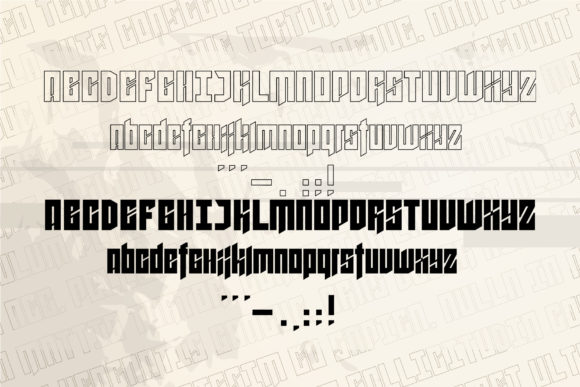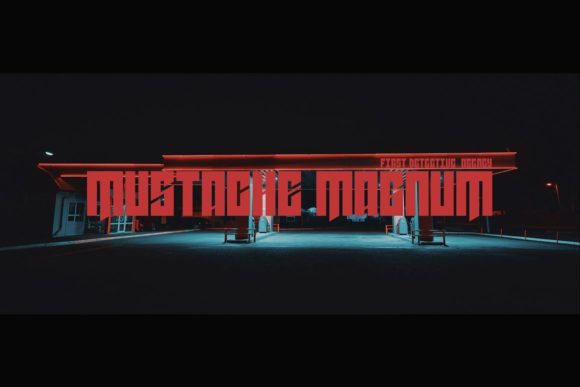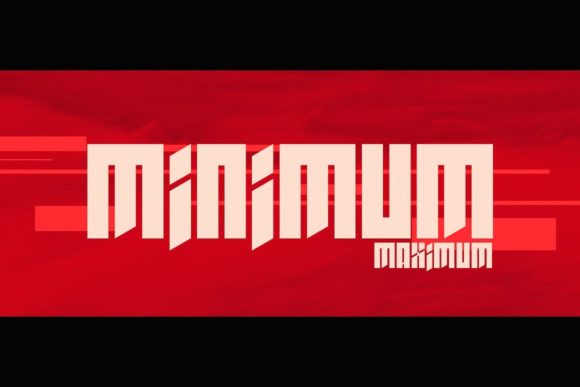
Unleash Your Creativity with Big Brother Font: The Ultimate Neo-Gothic Display Font
Are you tired of using the same old fonts in your designs? Do you want to add a bold and fierce touch to your projects? Look no further than the Big Brother Font, a cool and assertive neo-gothic display font that’s sure to take your designs to the next level. In this article, we’ll explore the features and benefits of Big Brother Font, and show you how to use it to create stunning designs that demand attention.
What is Big Brother Font?
Big Brother Font is a neo-gothic display font that’s designed to make a statement. Its bold and assertive style is perfect for designs that require a fierce and powerful touch. Whether you’re working on a logo, a poster, or a website, Big Brother Font is the perfect choice for designers who want to add a touch of drama and elegance to their projects.
Key Features of Big Brother Font
- Bold and Assertive Style: Big Brother Font is designed to make a statement. Its bold and assertive style is perfect for designs that require a fierce and powerful touch.
- Neo-Gothic Design: Big Brother Font features a neo-gothic design that’s both elegant and dramatic. Its intricate details and ornate style make it perfect for designs that require a touch of sophistication.
- Highly Versatile: Big Brother Font is highly versatile and can be used on a wide range of design projects, from logos and posters to websites and social media graphics.
- Easily Readable: Despite its bold and ornate style, Big Brother Font is easily readable, making it perfect for designs that require a clear and concise message.
How to Use Big Brother Font in Your Designs
- Use it as a Title Font: Big Brother Font is perfect for use as a title font. Use it to add a bold and assertive touch to your headings and titles.
- Pair it with Other Fonts: Big Brother Font pairs well with other fonts, including sans-serif fonts like Arial and Helvetica. Use it in combination with other fonts to create a unique and visually appealing design.
- Experiment with Colors: Big Brother Font looks great in a variety of colors. Experiment with different colors and gradients to find the perfect look for your design.
Benefits of Using Big Brother Font
- Adds a Touch of Drama and Elegance: Big Brother Font adds a touch of drama and elegance to any design. Its bold and assertive style is perfect for designs that require a fierce and powerful touch.
- Helps to Create a Strong Visual Identity: Big Brother Font helps to create a strong visual identity for your brand. Its unique and distinctive style makes it perfect for use in logos and branding materials.
- Increases Readability: Despite its bold and ornate style, Big Brother Font is easily readable. This makes it perfect for designs that require a clear and concise message.
In conclusion, Big Brother Font is a cool and assertive neo-gothic display font that’s perfect for designers who want to add a bold and fierce touch to their projects. Its bold and assertive style, neo-gothic design, and highly versatile nature make it perfect for a wide range of design projects. Whether you’re working on a logo, a poster, or a website, Big Brother Font is the perfect choice for designers who want to create stunning designs that demand attention.